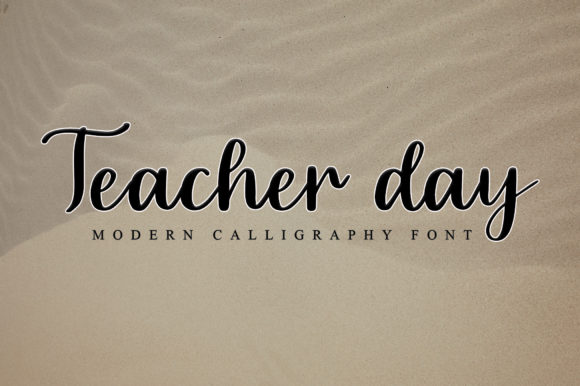
Introducing Teacher Day Font, the enchanting script font designed to take your designs to new heights. Prepare to be captivated by its charming personality, inspired by the dedication and warmth of teachers who nurture young minds. Crafted with meticulous precision, Teacher Day Font is a visual masterpiece that radiates warmth and elegance.
Step into a world of creativity where words dance with grace and beauty. Teacher Day Font's graceful curves and fluid strokes evoke a sense of harmony and joy, making it the perfect choice for adding a touch of magic to your designs. Its delicate flourishes and playful ligatures bring a sense of whimsy and elegance, guaranteed to leave a lasting impression on your audience.
Unleash your imagination and explore the endless possibilities with Teacher Day Font. Whether you're creating heartwarming Christmas greetings, designing eye-catching social media posts, or crafting personalized invitations, this font will add a touch of sophistication and charm to your projects. Its versatility knows no bounds, making it suitable for a wide range of applications, from branding and packaging to web design and digital marketing.
With Teacher Day Font, you'll discover a font that embodies the spirit of education and enlightenment. Its charming style evokes feelings of nostalgia and wonder, reminiscent of childhood memories and the transformative power of learning. Embrace the essence of Teacher Day Font and let your creativity soar to new heights.